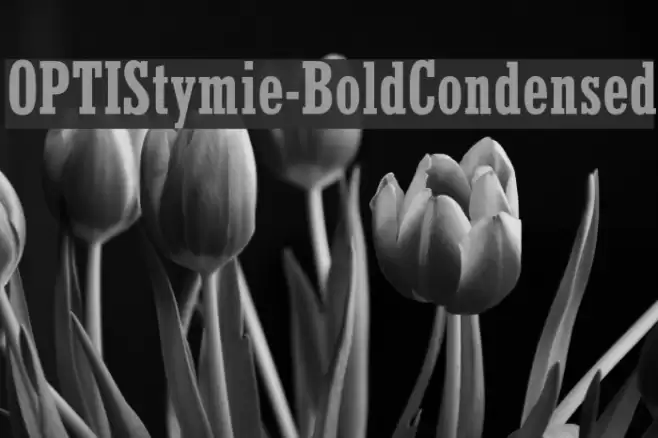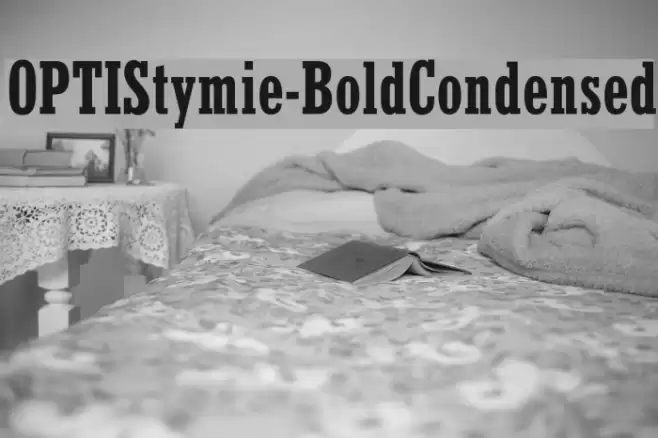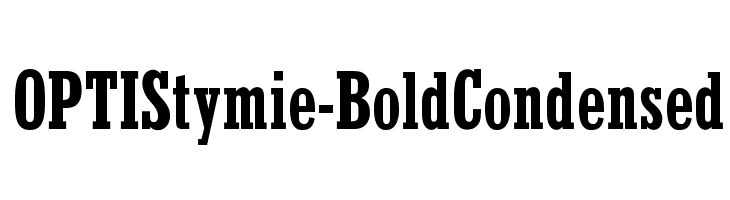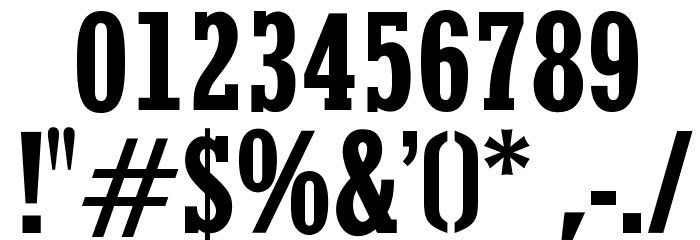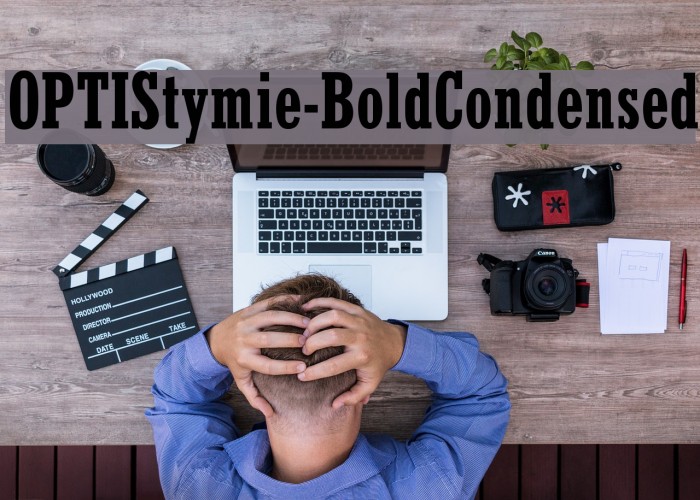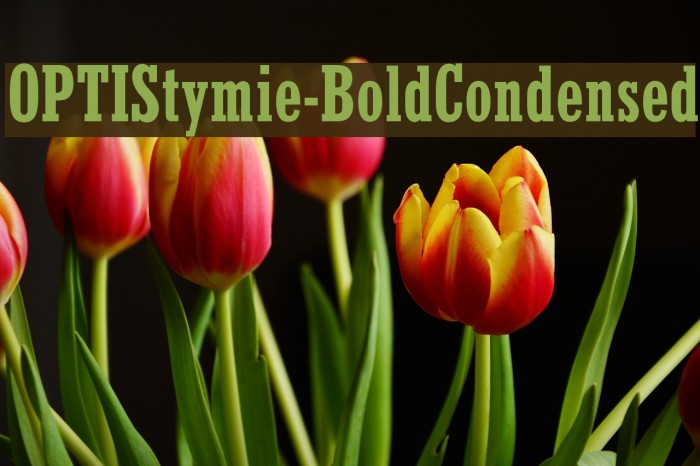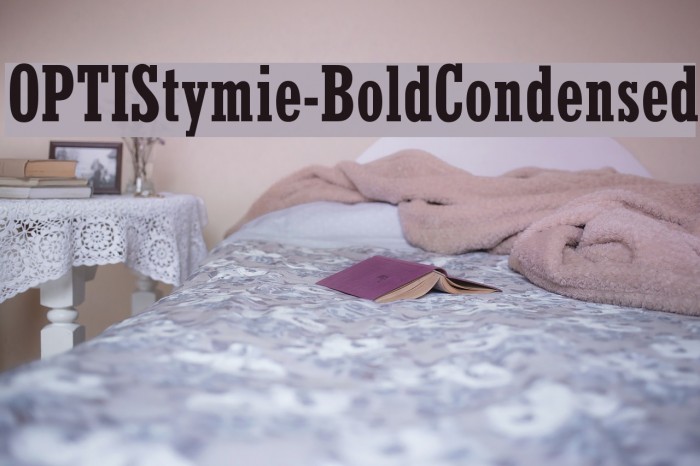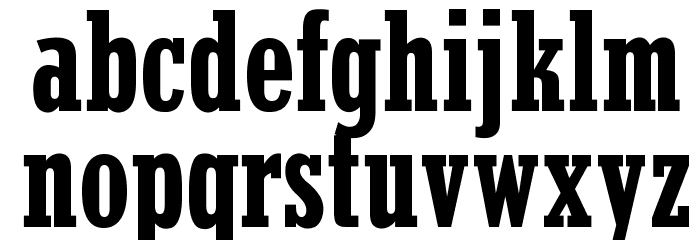
OPTIStymie-BoldCondensed Font
OPTIStymie-BoldCondensed Description
This font features a bold and condensed style with strong, thick strokes that convey a sense of authority and impact. The uppercase and lowercase letters are designed with a uniform width, creating a cohesive and structured appearance. The numbers and special characters maintain the same boldness, ensuring consistency across all elements. The serifs are prominent, adding a touch of classic elegance to the overall design. This font is well-suited for making a statement, with its high contrast and tight character spacing enhancing its readability and visual appeal.
A bold, condensed serif font with strong strokes and high contrast from Uncategorized fonts.
- Proposed Projects: Ideal for headlines, posters, branding, and any project requiring a strong visual impact.
- Character Spacing: Tight
- Overall Style: Classic